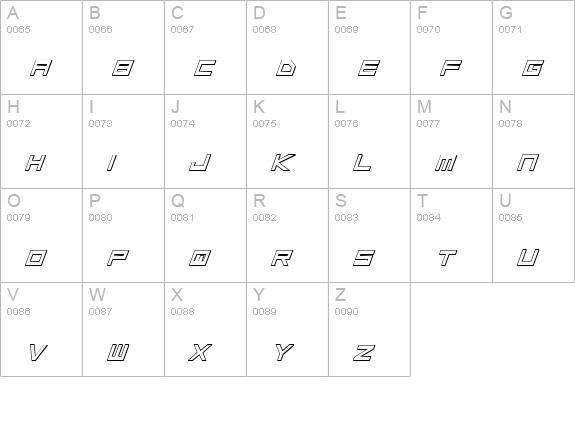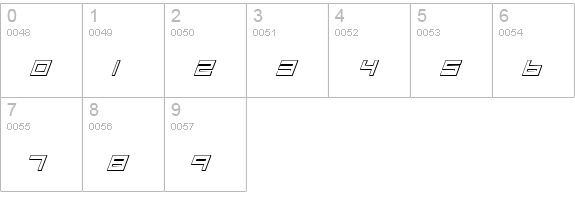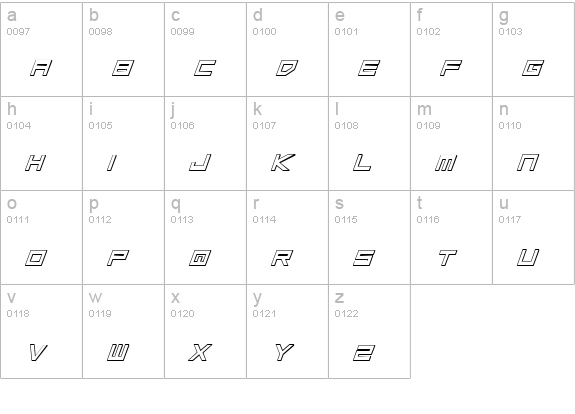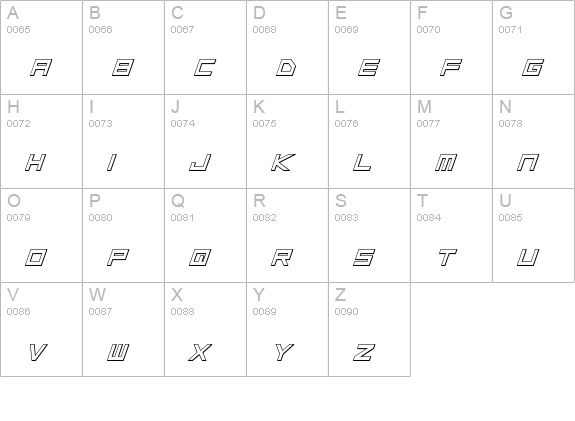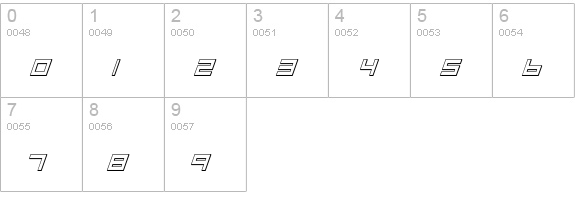
Low Gun Screen Bold Italic 3D is a strong, high-contrast, italic variant in the Low typeface family \xE2\x80\x94 well suited to headlines, attention-grabbing titles, and strong calls-to-action.
The Low Gun Screen Bold Italic 3D font is a striking and modern typeface that exudes confidence and edginess. Its bold and italic design adds a dynamic flair to any project, making it perfect for eye-catching headlines and attention-grabbing designs. The 3D effect gives the font a dimensional quality, adding depth and interest to your text. What's even better is that this captivating font is available for FREE download at FontsMarket.com. Whether you're designing posters, logos, or social media graphics, the Low Gun Screen Bold Italic 3D font is sure to make a bold statement and elevate your creations to the next level. Download it now and unleash your creativity with this versatile and impactful typeface.